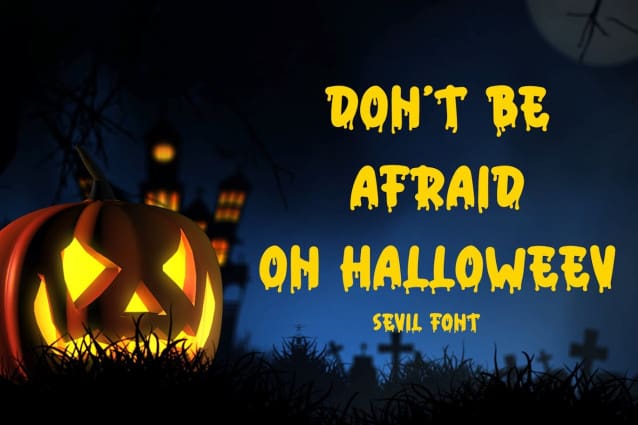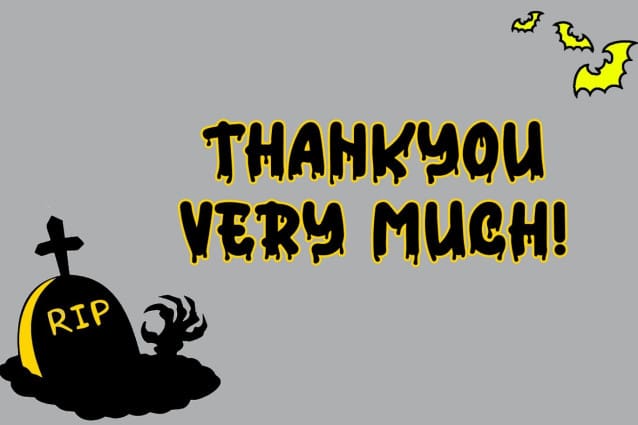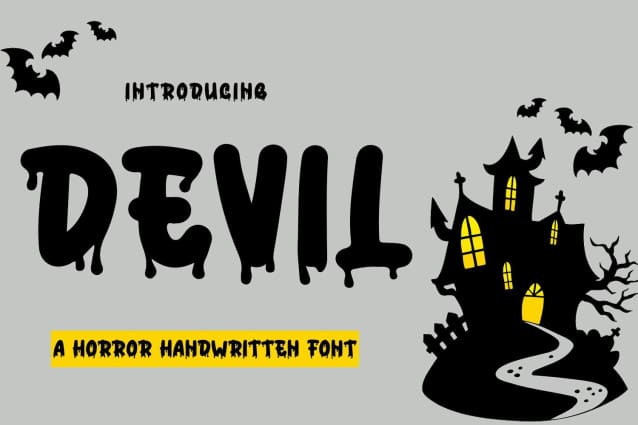
Devil Horror Font
Devil Horror Font is complemented by some of the same lovingly made alternatives. Go to your OpenType features to access a wide selection of alternative letters and ligatures, select the letters you want from the wide variety to get the display font of your choice. Perfect for editorial projects, Logo design, clothing brands, product packaging, magazine headers or simply as a stylish text overlay on any background image.